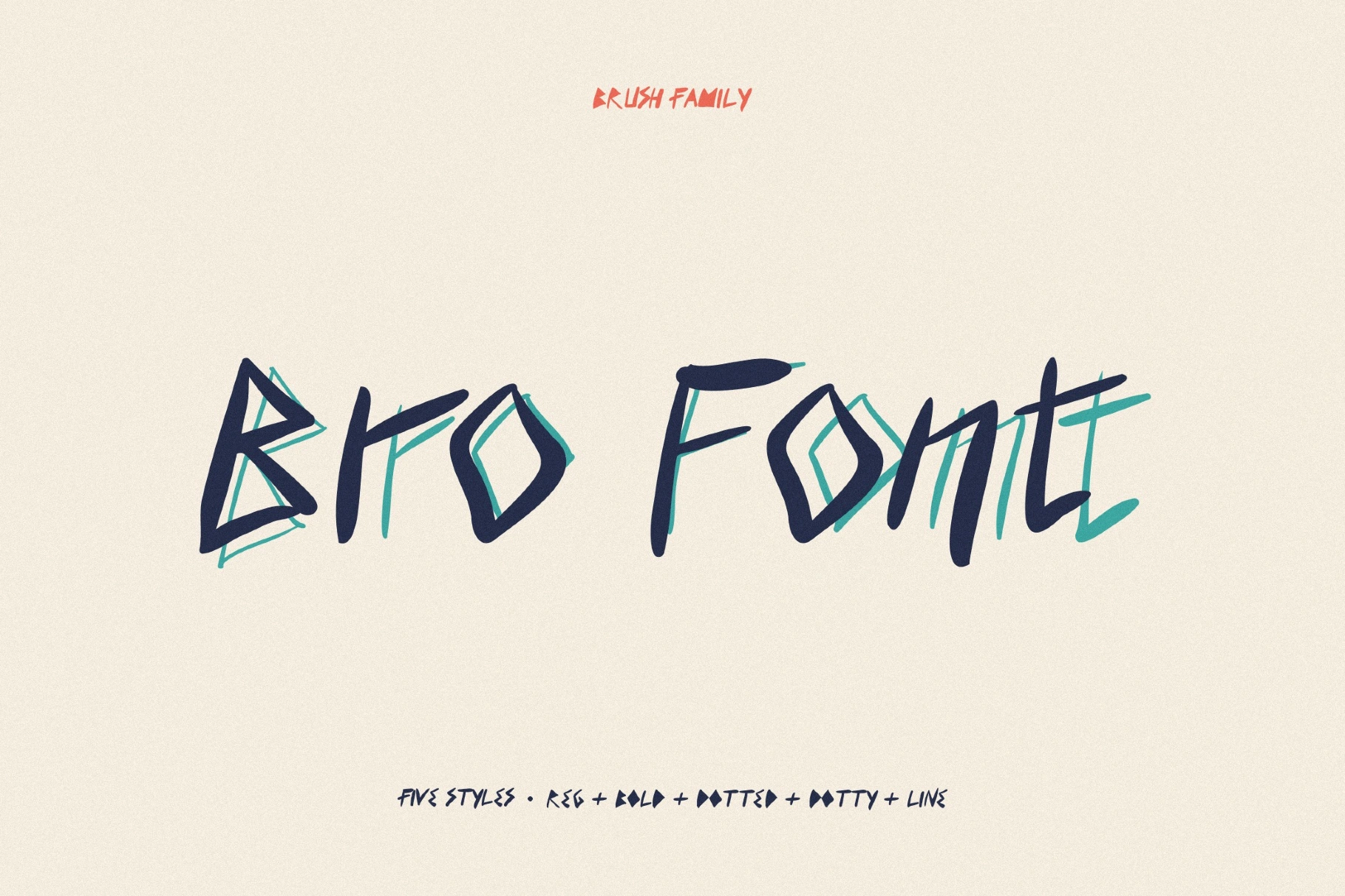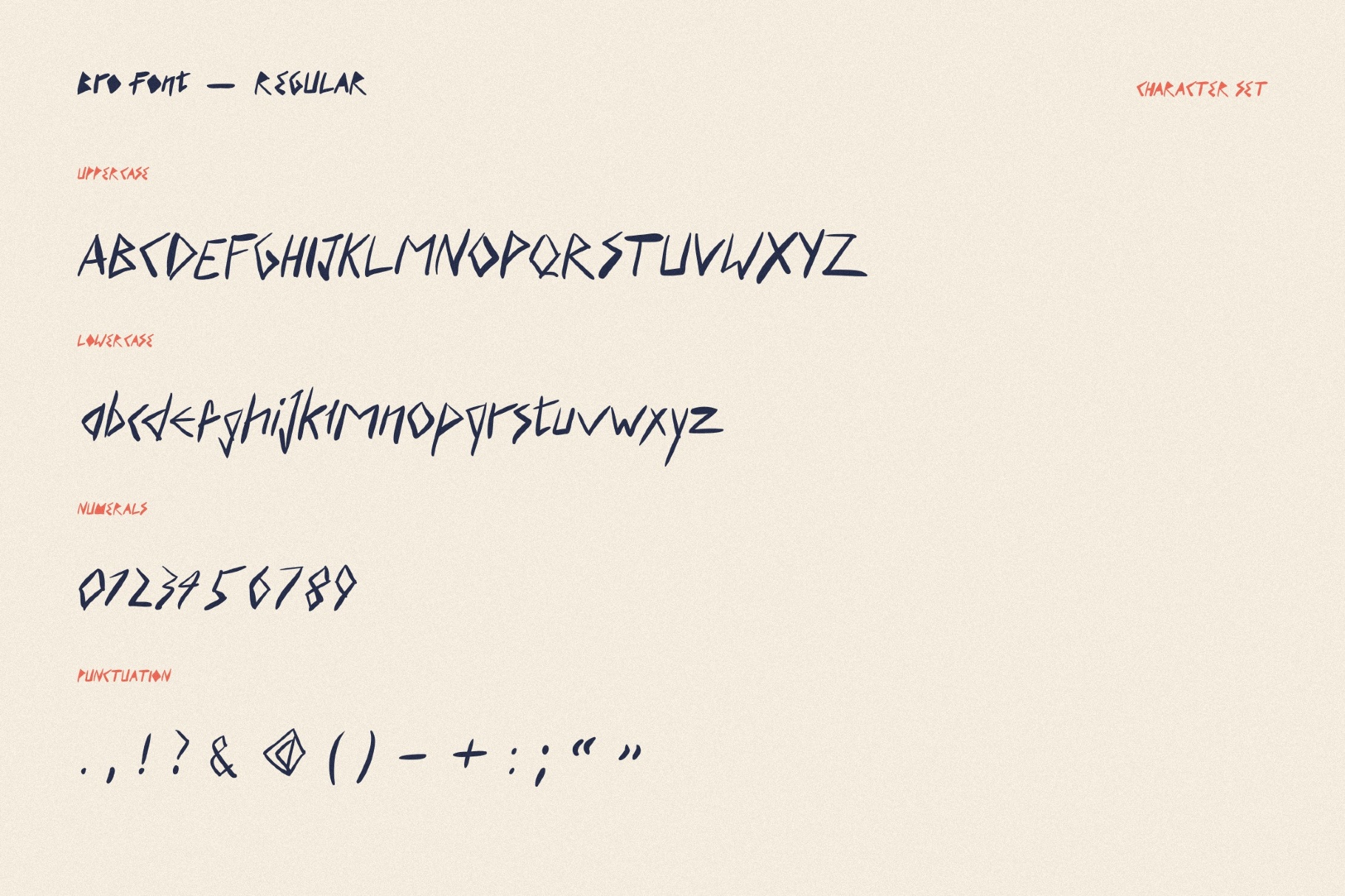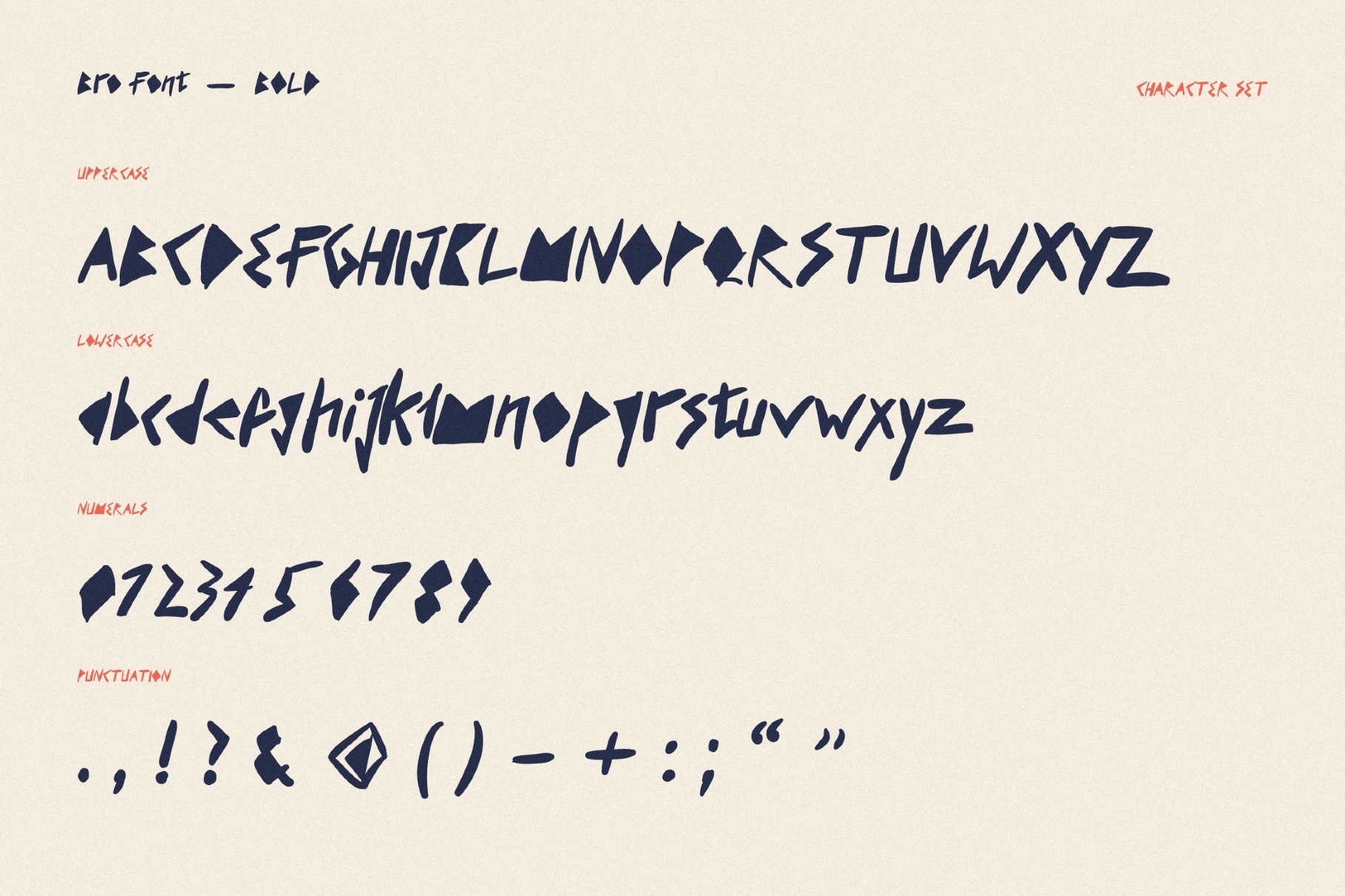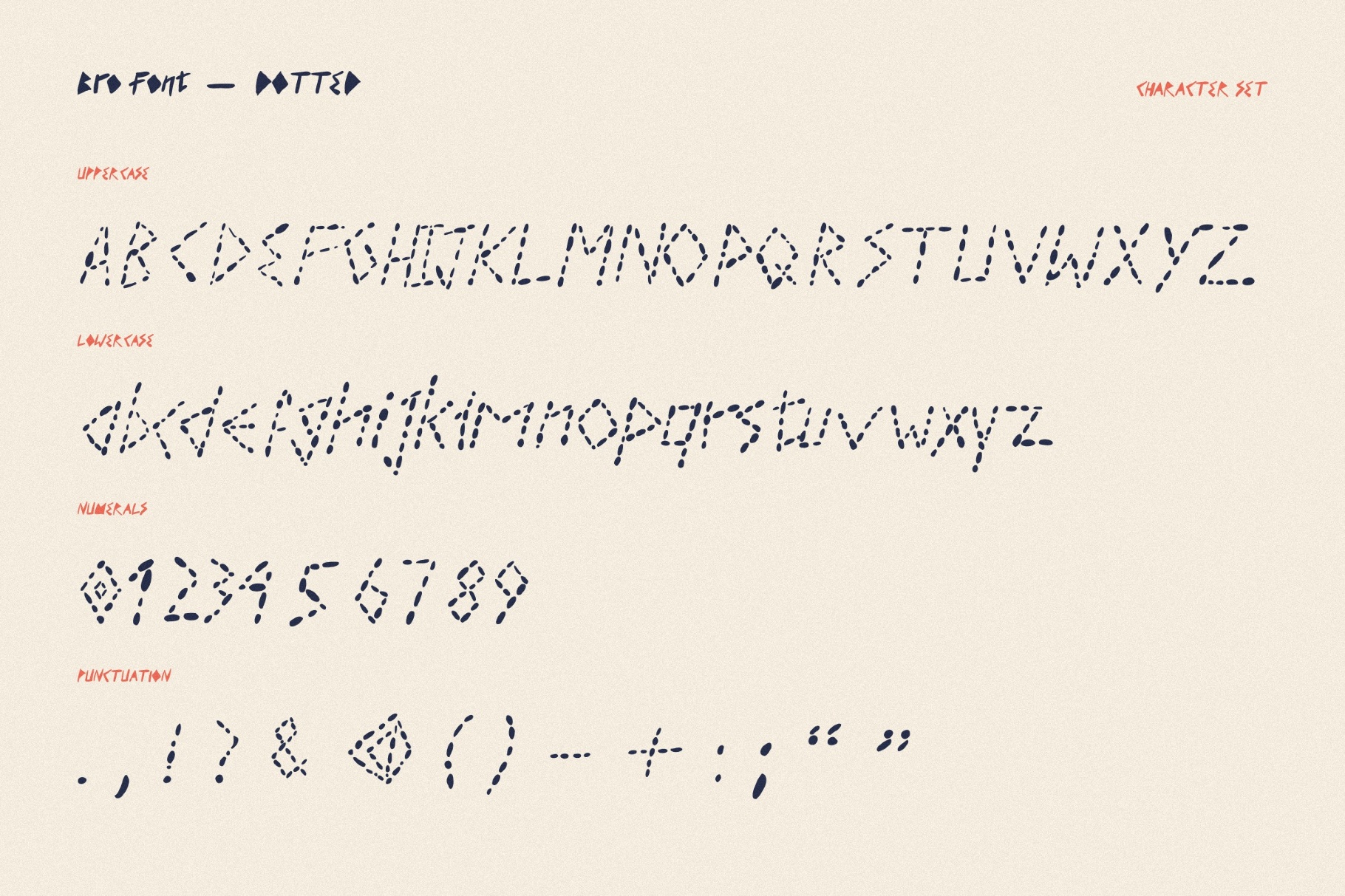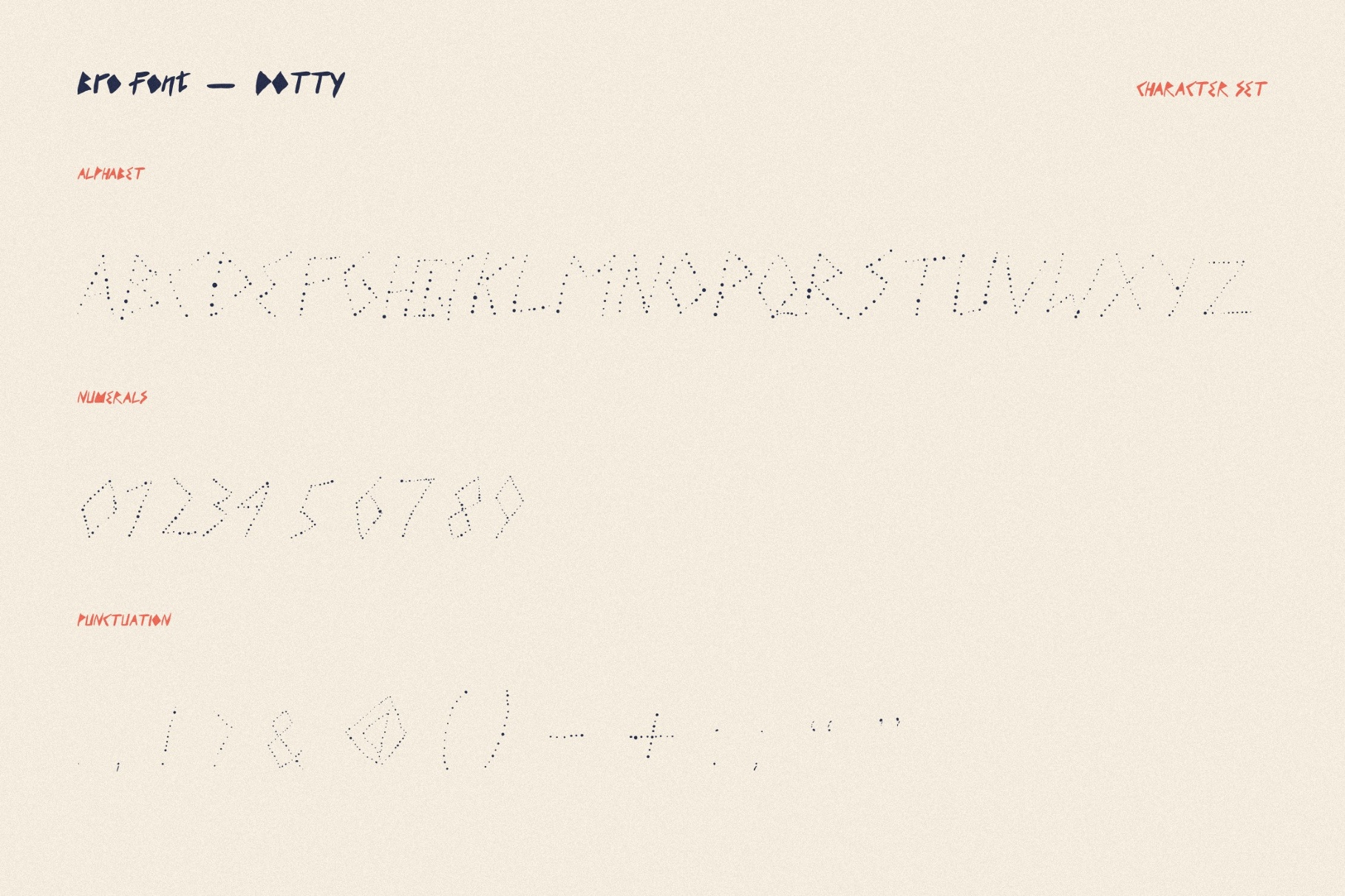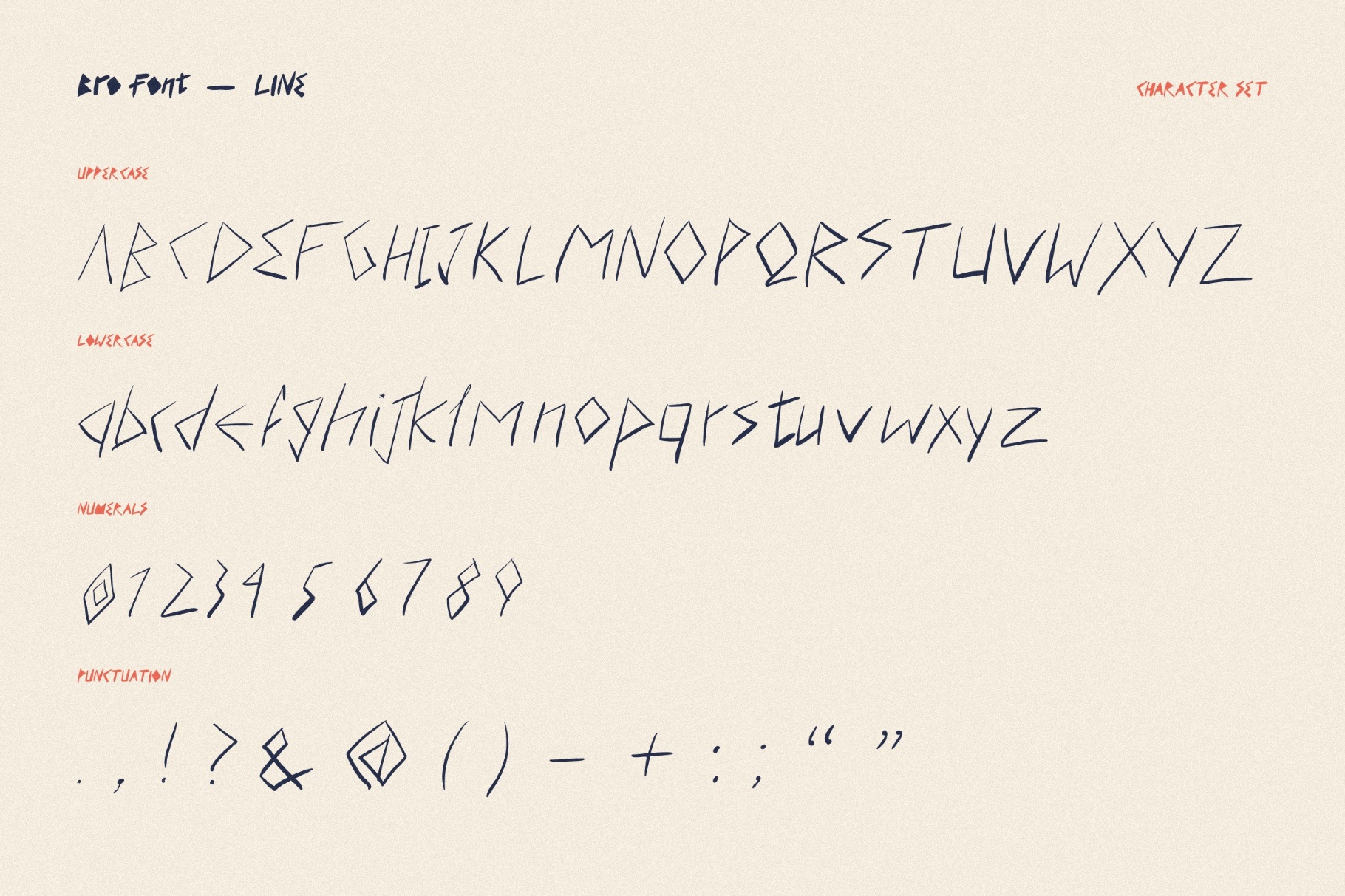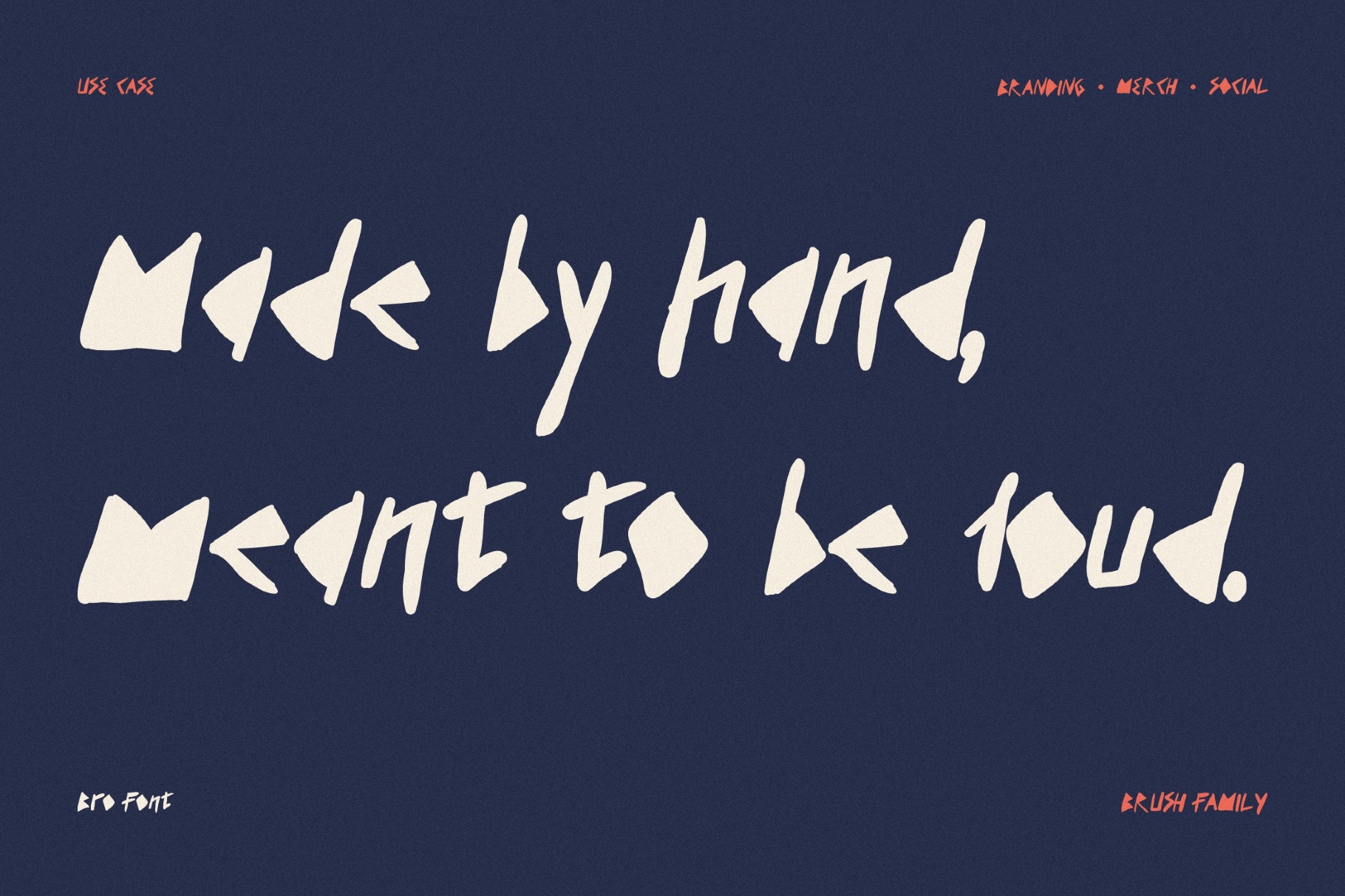
Bro - Punk Font Family
The Bro font slashes through the page with angular brush strokes, graffiti speed, and sharp urban energy, like in street tags and early-2000s underground club graphics. It is a perfect choice when the design needs to look bold and defiant: streetwear logos, rap covers, esports banners, poster drops, sneaker campaigns, nightlife branding, and social media visuals.
• 5 styles: Regular, Bold, Dotted, Dotty, and Line;
• uppercase and lowercase letters;
• numbers, punctuation, dingbats, and symbols;
• multilingual support across extended Latin and Cyrillic scripts.